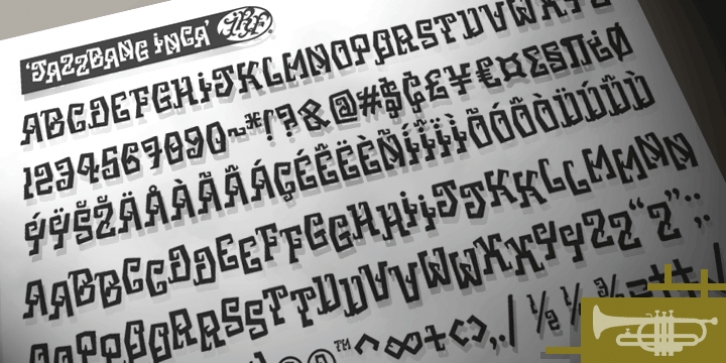
Jazz meets the jungle, and together they create new symbols!
This fun font has its personality rooted deep within the steamy recesses of tribal imagery, while still feeling individual, quirky, and modern. You can type ‘Jazzbang Inca’ in all Caps or all Lowercase for that traditional, straight line appearance.
Or better still, for a cool staggered look (see poster image 2) just type a Cap then a Lowercase and alternate. (Like ‘JaZzBaNg InCa’ OR ‘jAzZbAnG iNcA’)